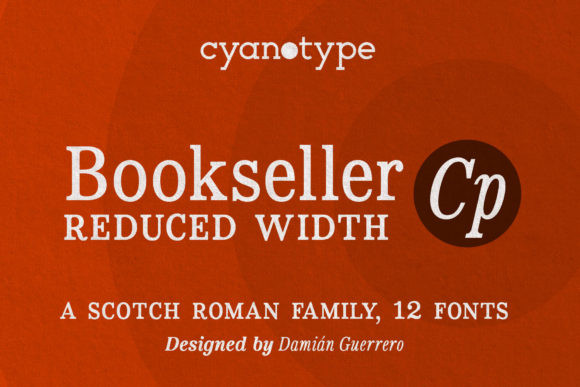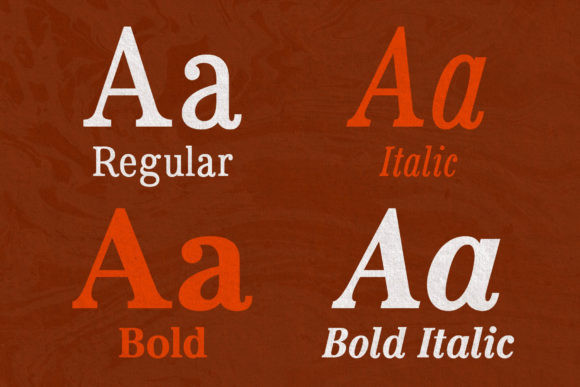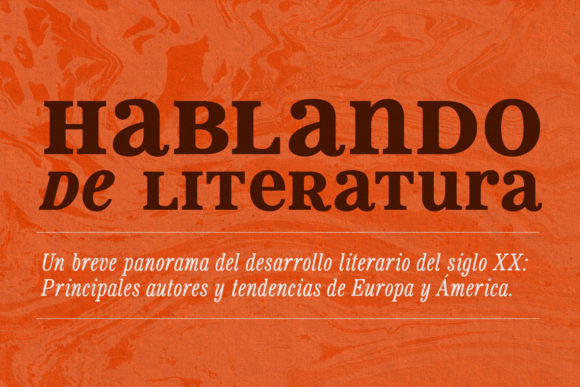
Bookseller Font
Bookseller is a contemporary serif font optically adjusted for text at smaller sizes. Its narrow look let you save some text lines. It features small caps, old style figures, lining figures, fractions and basic Cyrillic alphabet. Its solid shapes make it great for books, magazines, editorial design, e-pubs, small text and captions.